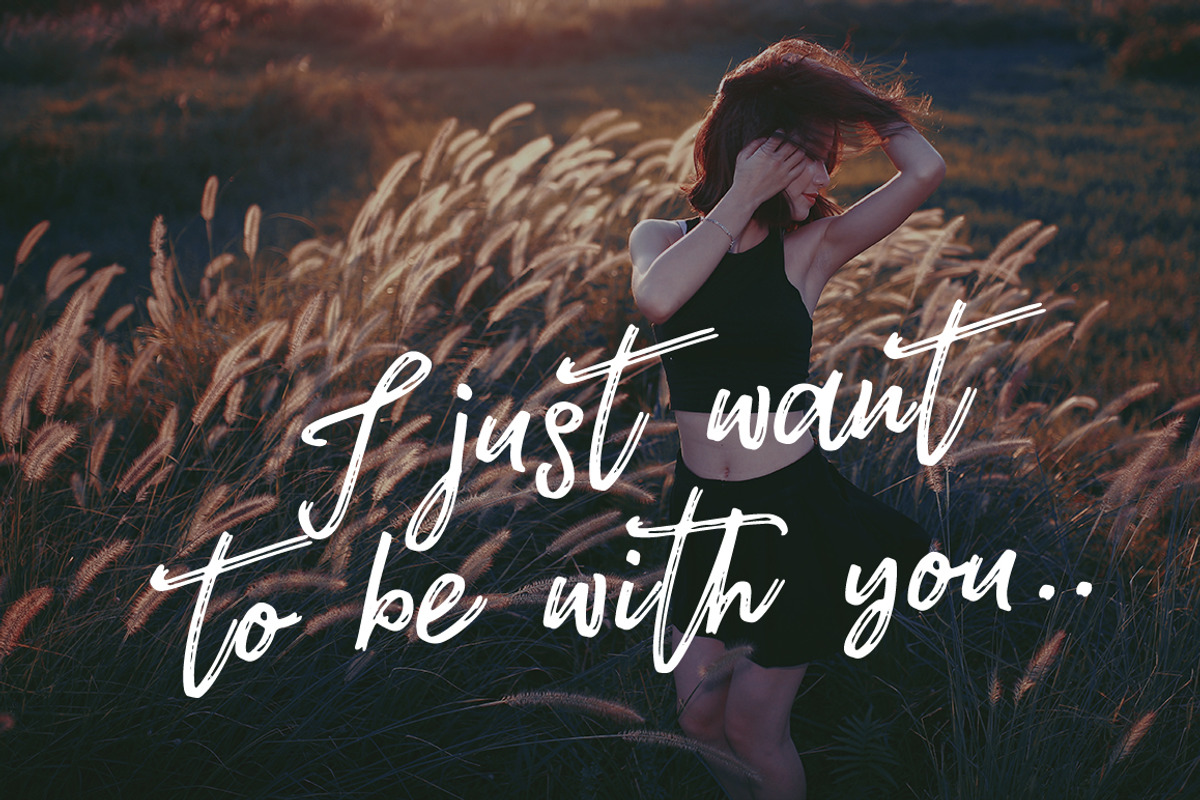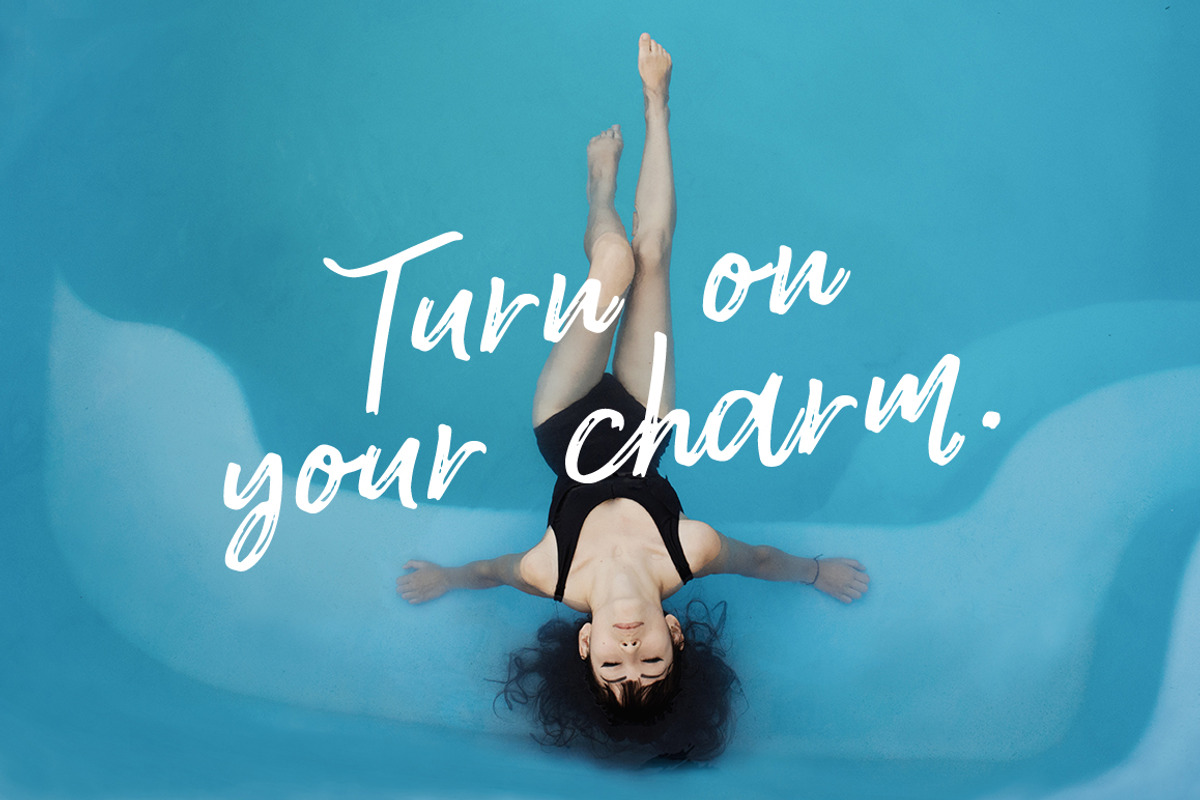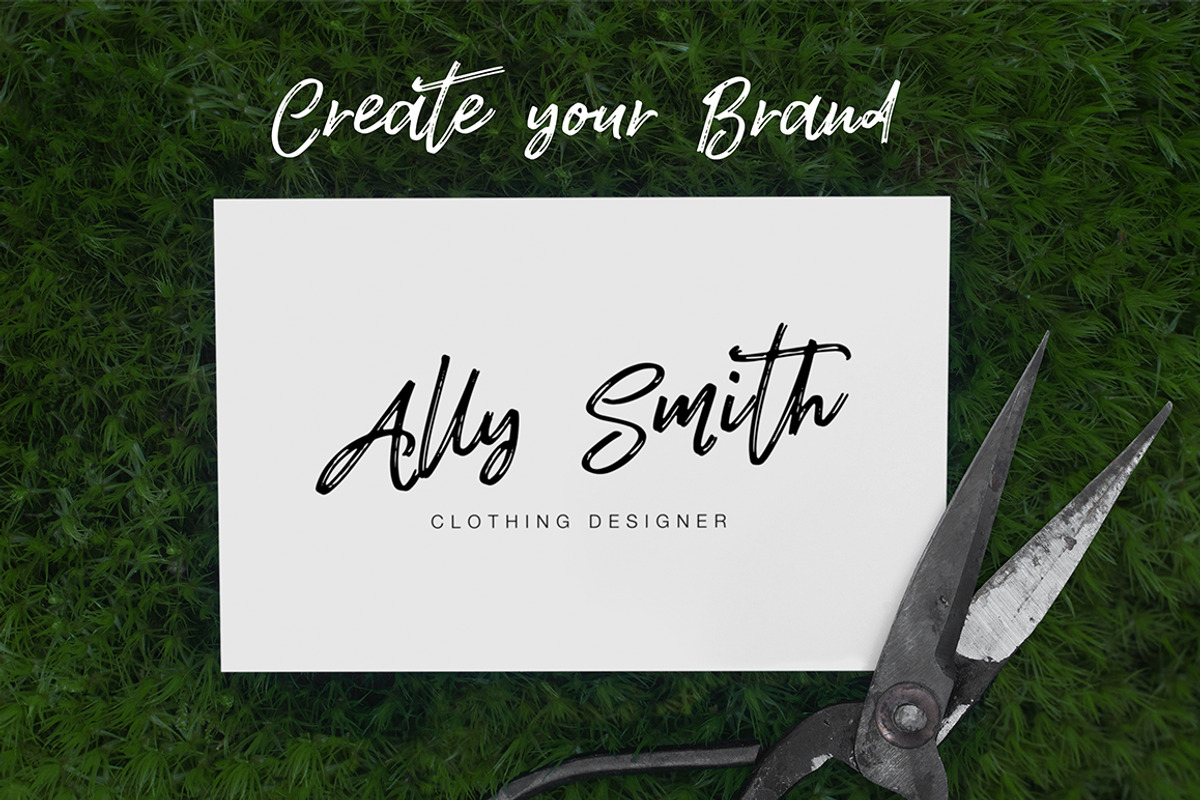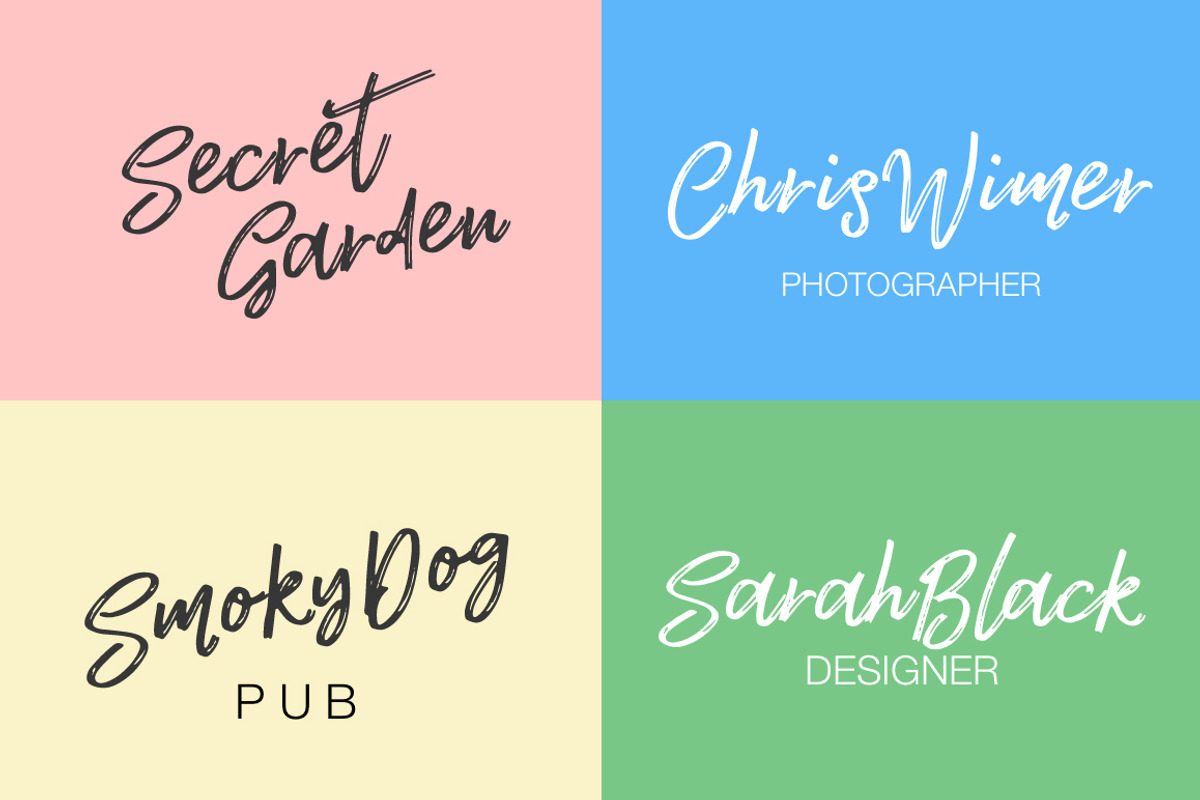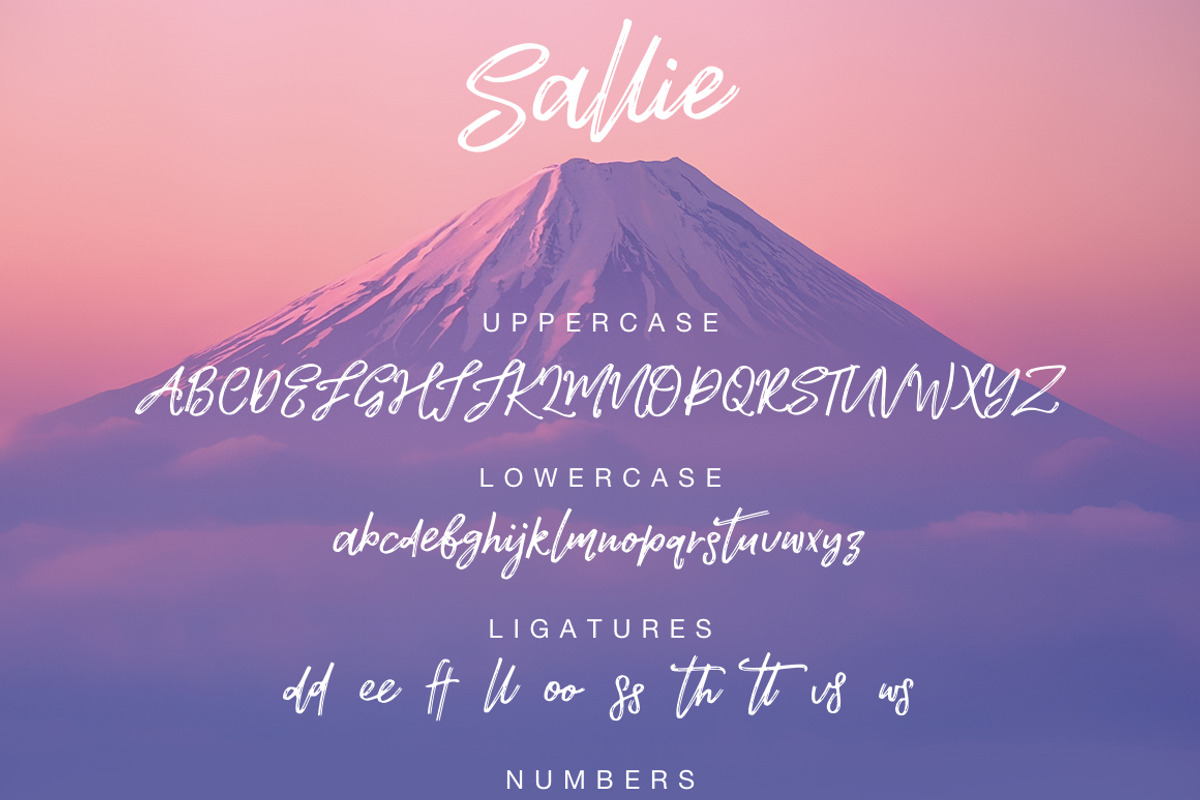
Sallie font
Sallie font by supfonts is a font selected for branding, posters, packaging, typography.
Why Sallie font is worth a look
Sallie font by supfonts fits naturally into Branding, posters, packaging, typography.